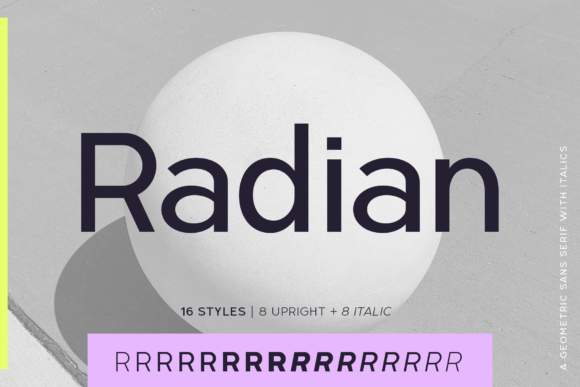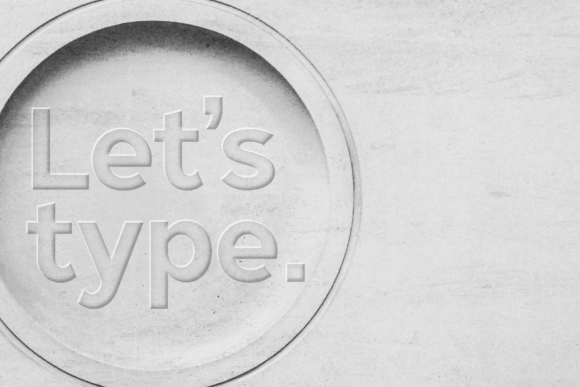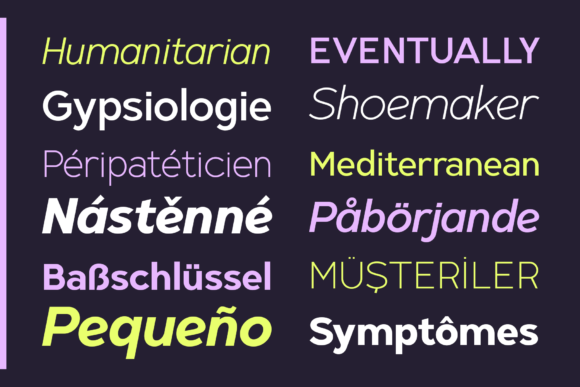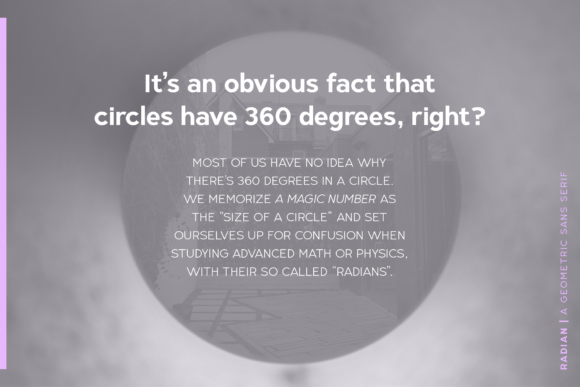
Radian Font: Minimalist Sans Serif for Modern Logo Design
About the Radian Font
From logos to headlines, the Radian Font is the perfect choice for making a lasting impression. Radian is a simple and casual sans serif font with an undeniably clean feel. With its neat and beautiful arrangement of letters, this typeface will look outstanding in both formal and non-formal designs.
Radian’s clean, casual aesthetic makes it ideal for headlines, branding elements, short-form content, and posters where readability at larger sizes is key. It works exceptionally well in packaging design for products aiming for a modern, approachable feel. However, its simplicity might prove less effective for lengthy body text or UI elements requiring high legibility at smaller point sizes.
Its friendly, yet modern personality pairs well with a variety of fonts. Consider pairing Radian with a classic serif like Garamond for a sophisticated contrast, or a geometric sans-serif like Futura for a more contemporary feel. A playful script font could also add visual interest for specific applications.
Ultimately, Radian’s versatile nature suits brands seeking a clean, approachable, and contemporary image. It’s a font that avoids being overly assertive, yet still commands attention in the right context.
Radian Font Usage Examples
Radian Font Example